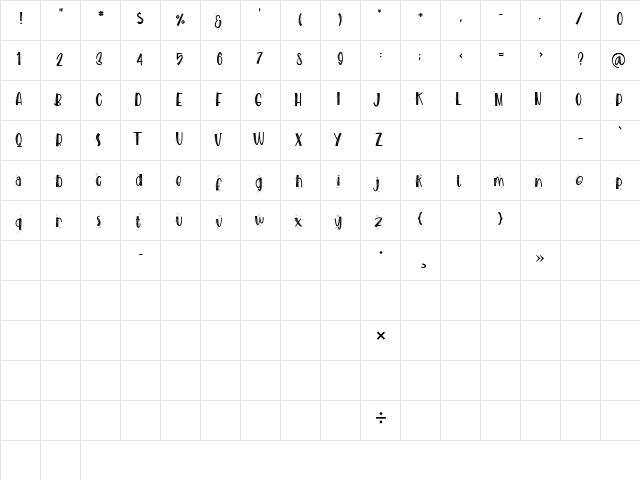
BLINKIES Regular
| Designer | lemoncraft 2018 |
Design Context for BLINKIES Typeface
BLINKIES is a composed and adaptable typeface that performs quietly and consistently across a wide range of design contexts.